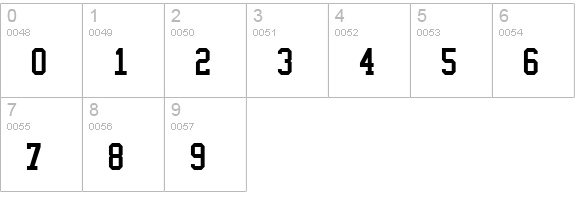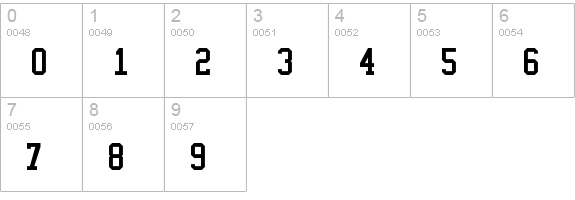
College Semi condensed Font Details
College Semi condensed is a distinctive, condensed-width variant in the College typeface family \xE2\x80\x94 well suited to design and typography projects.
Introducing College Semi, a sleek and stylish font that exudes sophistication and modernity. With its semi-condensed letterforms, this font strikes the perfect balance between elegance and readability, making it ideal for various design projects. College Semi is characterized by its clean lines and well-defined shapes, offering a professional and polished look to any text. Its subtle spacing and refined proportions ensure optimum legibility, even when used in small sizes or on screens. Whether you're creating a logo, designing a website, or crafting a brochure, this font will bring a touch of class to your work. What sets College Semi apart is not only its impeccable design but also its accessibility. This font is freely available to download at FontsMarket.com, allowing you to enhance your projects without any additional cost. By offering it for free, we aim to support and inspire designers, students, and creatives alike, making high-quality typography accessible to all. With College Semi, you can elevate your designs to new heights. Its versatility allows it to adapt to a wide range of contexts, from corporate branding to editorial layouts. The font's timeless appeal ensures that it will remain a valuable asset in your design toolkit for years to come. So why wait? Download College Semi today from FontsMarket.com and unlock the potential to create stunning visuals that captivate and engage your audience. Experience the freedom of having a premium font at your fingertips, ready to transform your designs into works of art.